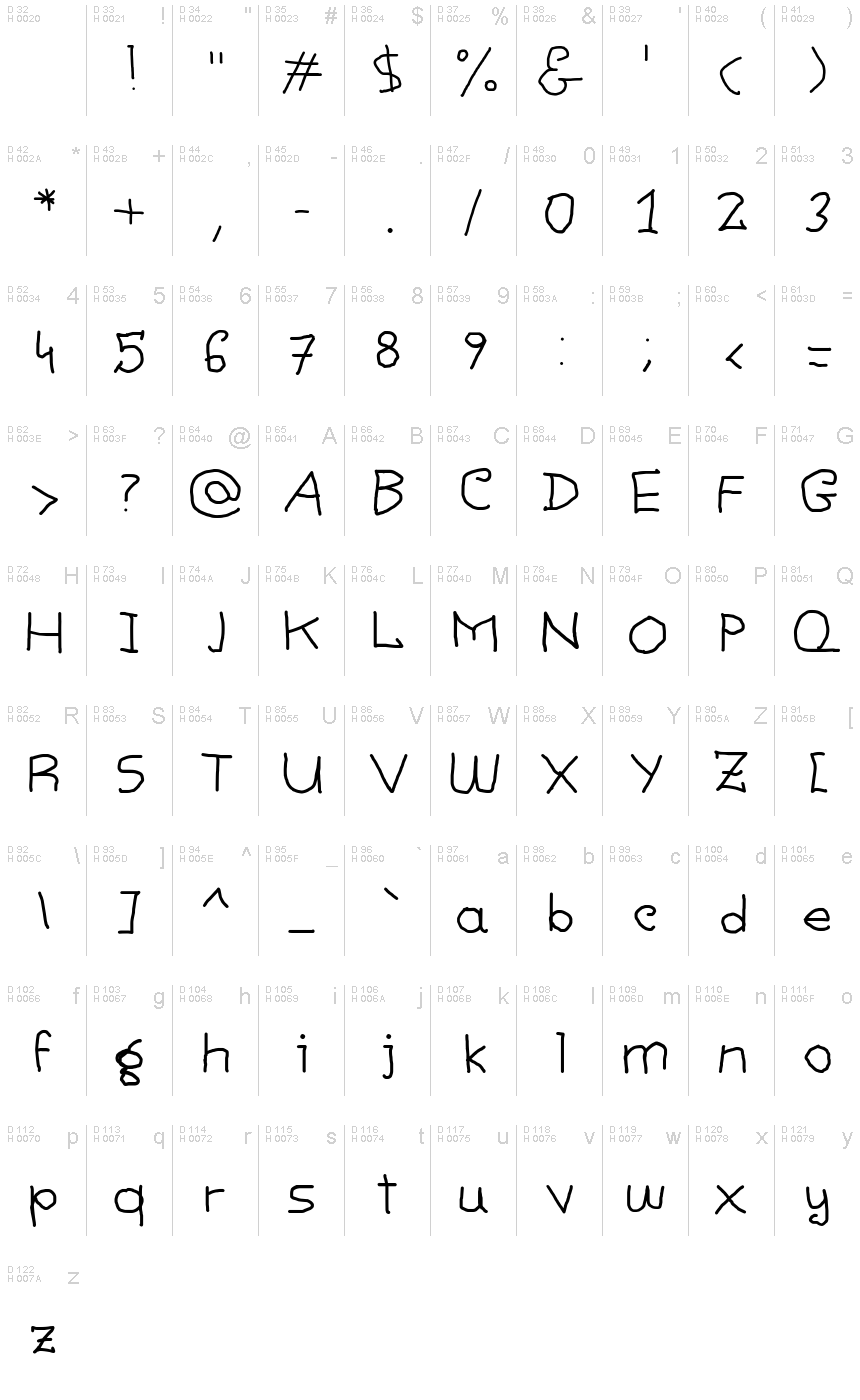
salvation Regular
Salvation font captures the essence of casual elegance with its distinctive handwritten style. This light font exudes a sense of warmth and approachability, making it an ideal choice for personal projects or brands seeking to establish a friendly connection. The fluid curves and playful nuances create a unique rhythm, lending character to any text.
Its aesthetic appeal lies in its effortless charm, striking a balance between sophistication and informality. Whether used for invitations, social media graphics, or branding materials, Salvation seamlessly enhances the visual narrative. Its engaging design invites creativity, making it perfect for anything from creative portfolios to heartfelt messages. Embrace the spirit of individuality with Salvation font-where every letter tells a story.